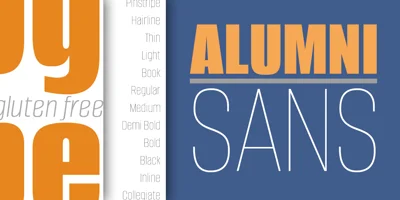
Alumni Font
Alumni Font is ideal for university branding, alumni association communications, graduation ceremony materials, school reunion invitations, educational institution signage, academic achievement awards, scholarly publications, campus event promotions, educational foundation marketing, and prestigious academic networking materials.
What makes Alumni Font exciting is its scholarly distinction that perfectly captures the educational pride and academic achievement found in university traditions and alumni excellence. This typeface features distinguished letterforms with academic proportions and scholarly details that evoke the lifelong learning commitment and intellectual achievement that defines successful graduates and educational excellence. The font's academic personality and educational authenticity make it ideal for educational institutions seeking to convey prestige, tradition, and the scholarly accomplishment that comes from quality education and alumni success stories.
Alumni Font family includes distinguished weight variations and academic alternatives that enhance its educational appeal while providing design flexibility for university and scholarly applications. The font features scholarly ligatures, academic-themed ornaments, and distinguished character variations that create authentic university atmosphere for educational and alumni branding.
Educational institutions and alumni organizations consistently select Alumni Font for projects requiring authentic academic appeal and educational credibility. The font's distinguished character excels in applications targeting graduates, academic professionals, and educational communities who appreciate genuine scholarly tradition and academic excellence. Whether you're designing for universities, alumni associations, or educational foundations, this prestigious typeface delivers the academic authenticity and scholarly distinction that resonates with audiences seeking genuine educational excellence and the lifelong pride that comes from quality education and successful academic achievement throughout their professional careers.